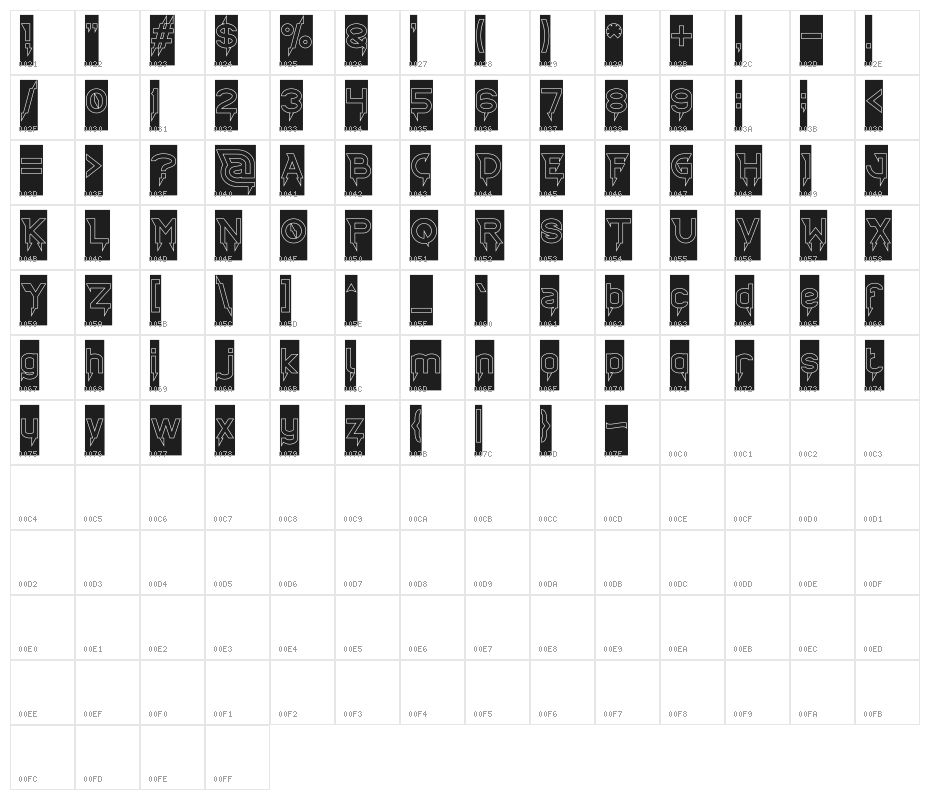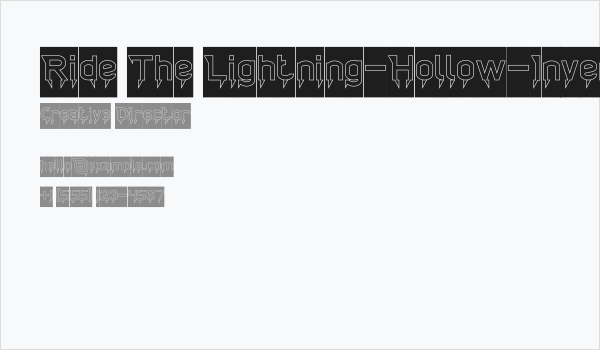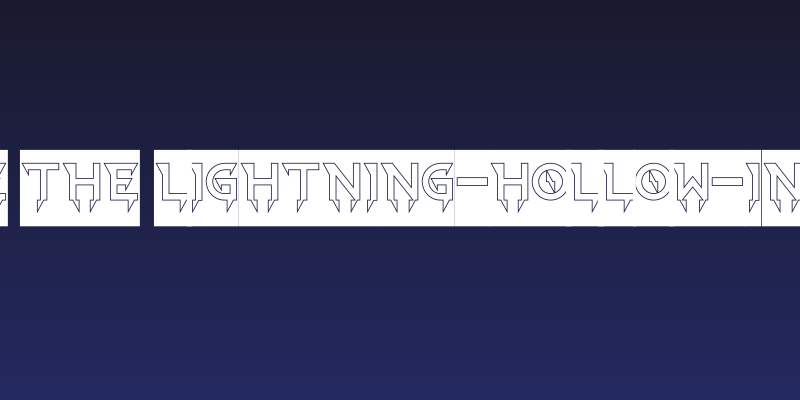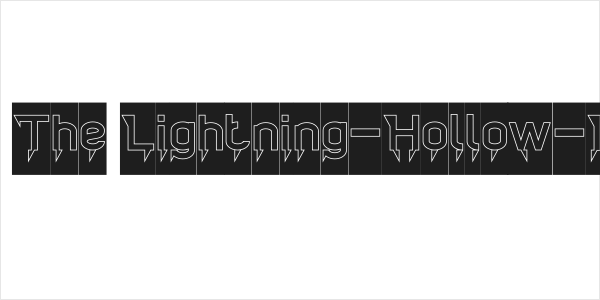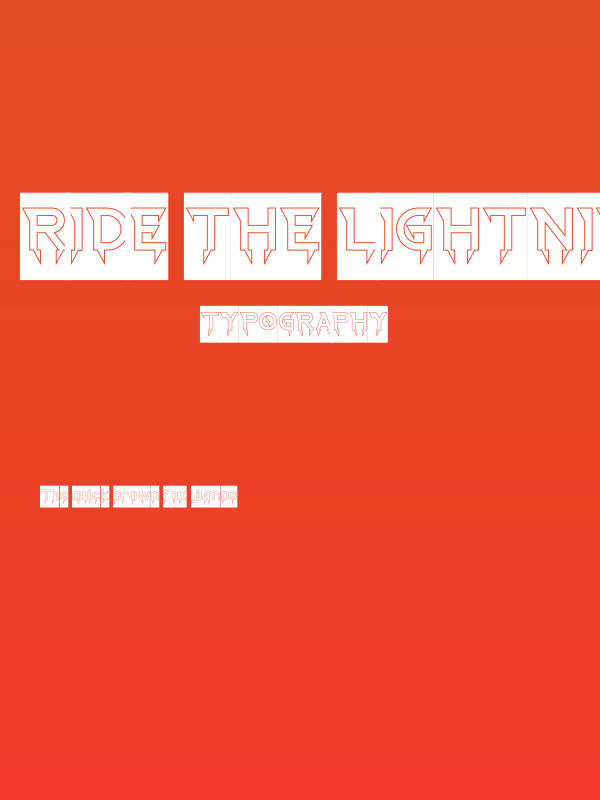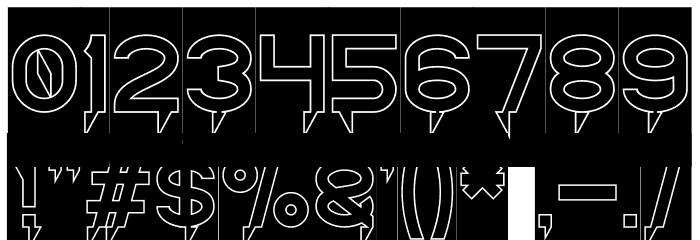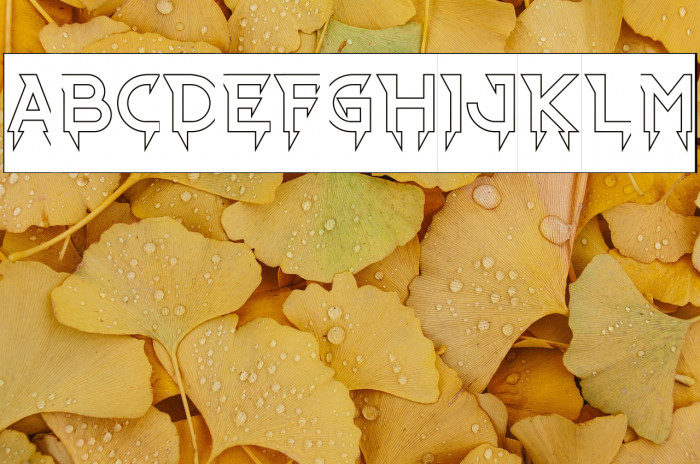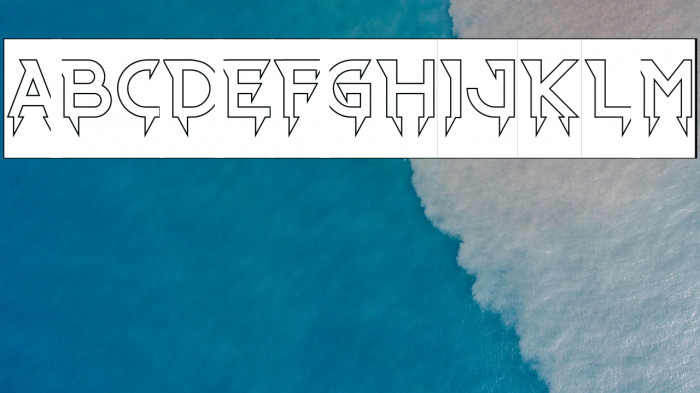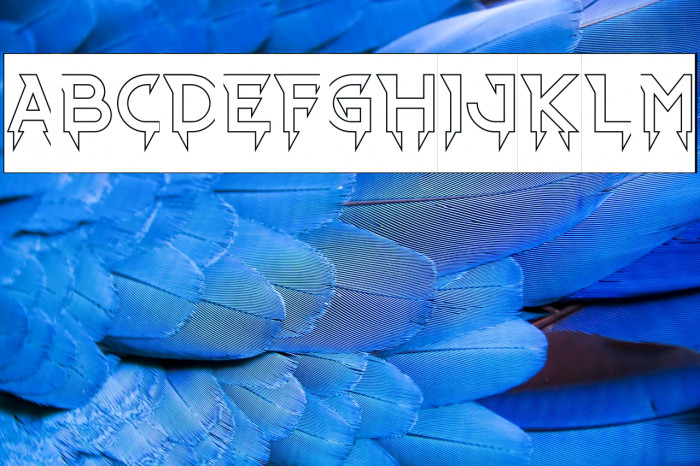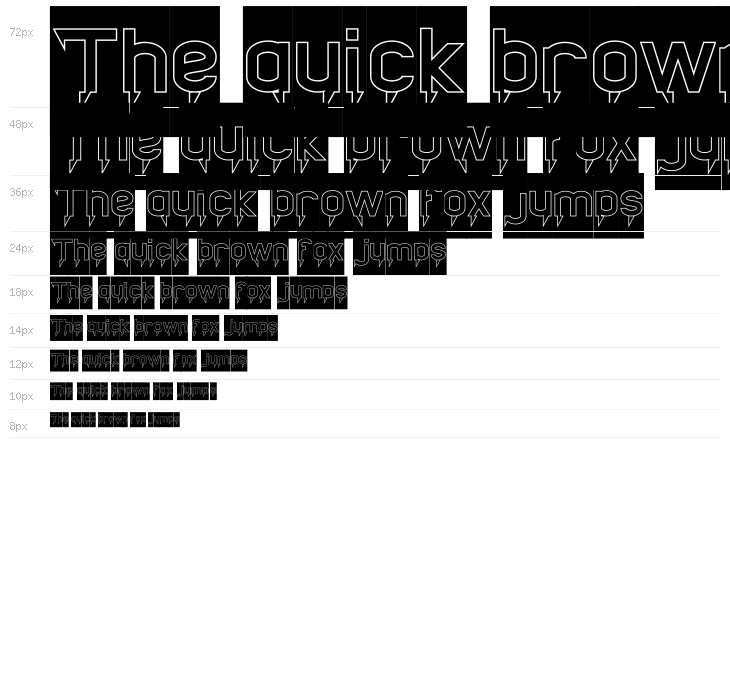
Ride The Lightning-Hollow-Inver Font
This font features a bold, electrifying design with a hollow interior, giving it a striking and dynamic appearance. The characters are outlined with sharp, angular edges, reminiscent of lightning bolts, which adds an energetic and edgy feel. The uppercase and lowercase letters maintain a consistent style, with the uppercase being slightly more pronounced. Numbers and special characters follow the same design principles, ensuring uniformity across all glyphs. The font's unique style makes it ideal for projects that require a bold statement or a modern, rebellious aesthetic.
| Overall Style | Modern, Edgy |
| Proposed Projects | Ideal for music album covers, event posters, branding for edgy or modern products, and any design needing a bold, electrifying impact. |